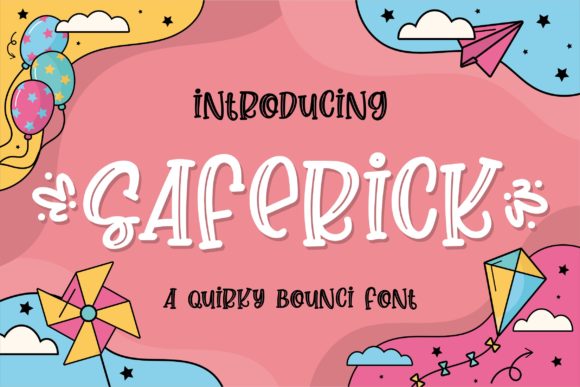
Introducing Saferick Font: A Journey Through Joyful Expression
In a world where creativity reigns supreme, Saferick Font emerges as a beacon of cheerfulness, ready to transform your designs into captivating expressions of fun and delight. This remarkable display font, crafted by the talented awansenja.type, is a symphony of playful strokes and charming characters, meticulously designed to infuse your projects with an irresistible sense of lightheartedness.
With Saferick Font at your disposal, you'll embark on a journey through imagination, where every letter dances with personality, captivating the hearts of your audience. Whether you're a seasoned designer or just starting your creative journey, this font is your passport to a world of boundless possibilities.
From playful logos that radiate warmth to enchanting stationery that sparks joy, Saferick Font is the perfect companion for your branding adventures. Its versatility extends to packaging designs, adding a touch of whimsy that makes your products irresistible. With Saferick Font, your designs will radiate positivity, leaving an unforgettable impression on all who encounter them.
As you delve into the world of Saferick Font, you'll discover a treasure trove of opportunities to let your creativity soar. It's the perfect choice for adding a cheerful touch to posters and flyers, capturing attention with its vibrant energy. Social media posts will come alive with personality, engaging your audience in a delightful dance of visual storytelling.
But Saferick Font isn't just about aesthetics; it's a font that speaks to the soul, evoking emotions and igniting imaginations. It's a font that inspires, encourages, and uplifts, transforming ordinary words into extraordinary expressions of joy and wonder.
So, embrace the magic of Saferick Font today, and let your designs blossom with an infectious spirit of fun and lightheartedness. Join the ranks of creative visionaries who have discovered the power of this remarkable font and elevate your projects to new heights of playful brilliance.